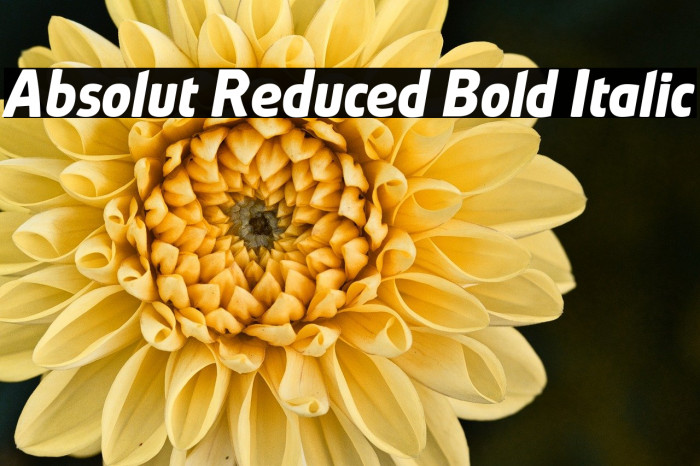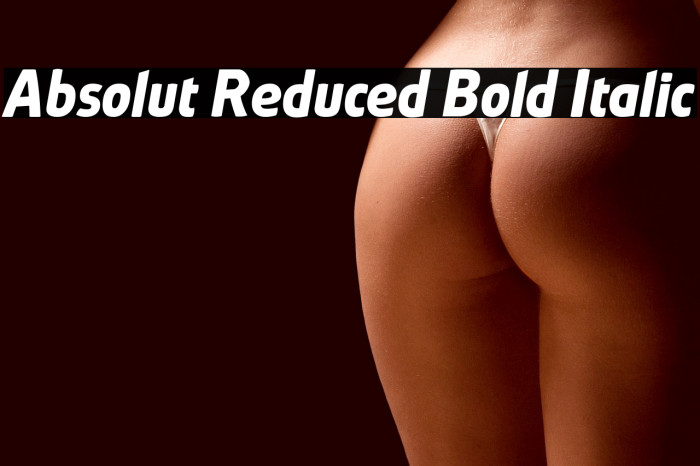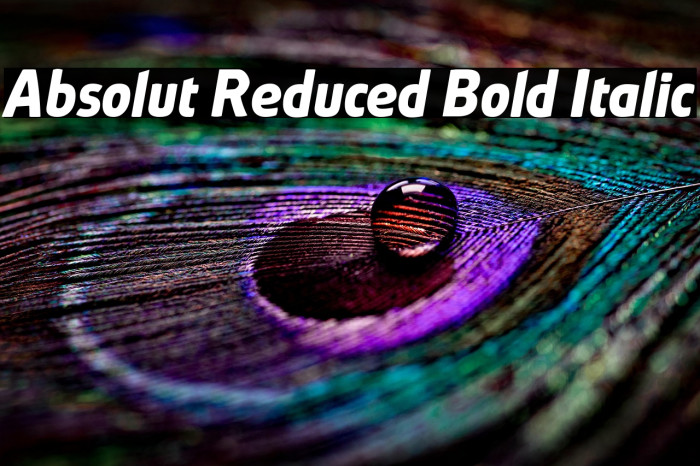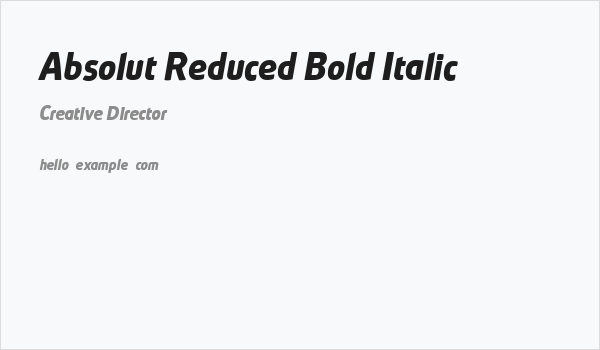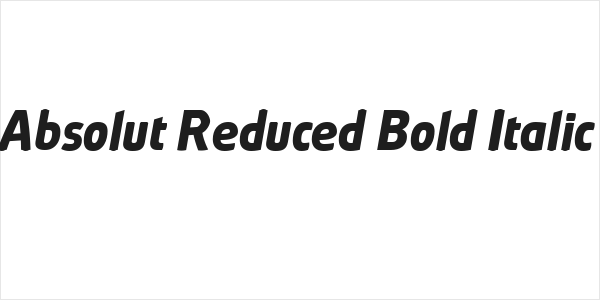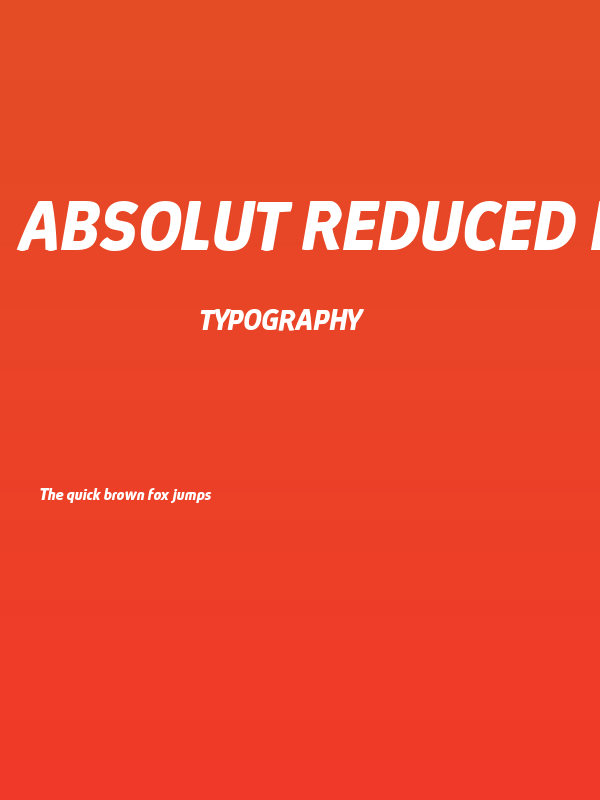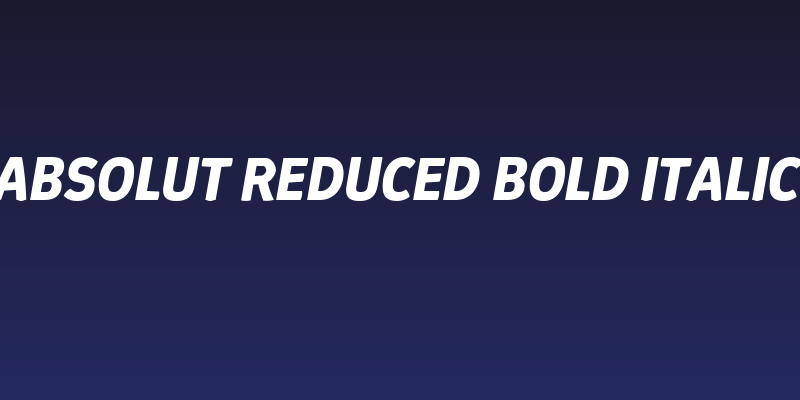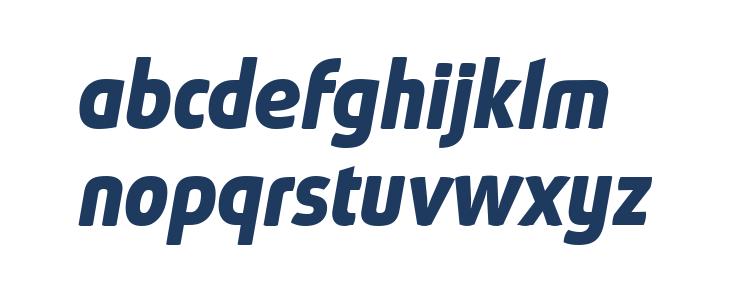
Absolut Reduced Bold Italic Font
Absolut Reduced Bold Italic Description
This font features a bold and italicized style, characterized by its strong presence and dynamic slant. The letters are well-defined with a consistent stroke weight, providing a sense of stability and confidence. The uppercase and lowercase characters maintain a uniform appearance, enhancing readability while adding a touch of modernity. The numerals and special characters are crafted to match the overall aesthetic, ensuring cohesion across different text elements. Its bold nature makes it suitable for impactful designs, while the italic slant adds a sense of movement and flair.
| Proposed Projects | Ideal for branding, advertising, headlines, and any design requiring a strong, modern impact. |